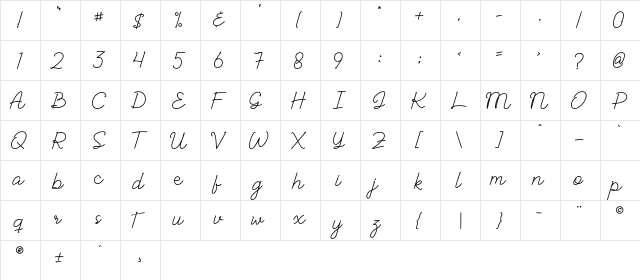
Albelia Script
| Style | Script |
| Foundry | wachied |
Albelia flows with the natural rhythm of handwritten lettering, making it ideal for designs that call for warmth and personal expression.
Font Pairing: Combine Albelia with a simple geometric sans for maximum contrast — the tension between flowing curves and clean structure is a classic typographic pairing.
Pro Tip: Pair Albelia with a clean sans-serif for supporting text. The contrast between fluid script and geometric structure creates an elegant typographic hierarchy.